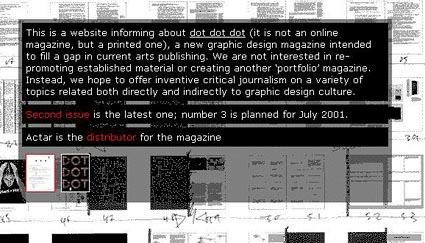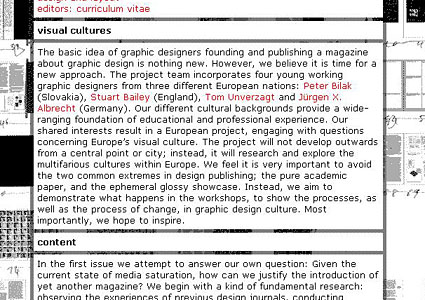
dot-font: Dot-Dot-Dot Dis
Design journalism takes a hit from a new design magazine that's out to lose friends and influence people.
The second issue of the new graphic-design magazine "..." ("Dot-dot-dot") doesn't live up to the promise of the first, but it's worth seeking out regardless. And future issues would be worth reading even to see what the editors will do next.
"Dot-dot-dot" is a design magazine with attitude, and ideas. The partial screen above is from the "dot-dot-dot" Web site.
"Dot-dot-dot" isn't like most design magazines. It's published by a four-person editorial team based in several countries: Juergen Albrecht (Leipzig), Stuart Bailey (Amsterdam/London), Peter Bilak (from Slovakia, but based in The Hague), and Tom Unverzagt (Leipzig), with "editorial oversight and advice" from Robin Kinross and Richard Hollis in London. The magazine (a compact 165mm x 235mm, or six-and-a-half by nine-and-a-quarter inches) aims to upset a few apple carts and evinces a horror of coffee-table design books. In the first issue the editors described their aims as being "critical, flexible, international, portfolio-free, rigorous, [and] useful."
Take No Prisoners
By "portfolio-free" they mean that they won't present any of the sort of articles that are the bread and butter of most design magazines: laudatory articles about the wonderful work of some designer or other, showcasing that designer's work in glossy photographs with explanatory text. Indeed, one of the most thoughtful articles in this issue, "The uses of failure," by Robin Kinross, takes an article by Margaret Richardson (also a creativepro.com contributing editor) that I published in "U&lc" as an example of the genre. The article was a study of the Portland, Oregon, design firm Anstey-Healey. (He also quotes an excerpt about El Lissitzky from a design history by Philip B. Meggs as a parallel, or perhaps complementary, example.) There's plenty of room for simply presenting good or interesting work, but Kinross is quite right that these are not critical articles. What he'd like to see is articles that convey the unruly roots and uncertain processes that lead to the finished work, rather than pieces that merely present the results.
"Dot-dot-dot" sets out to embody a new editorial approach to magazines about design, explained in the partial screen from its Web site above.
Talking about this as "portfolios" comes from the practice of graphic designers presenting a portfolio of their work to potential clients or employers, and by extension from the all-too-common occurrence of speakers at design conferences who do nothing but present a "portfolio" of their own work: "I did this, and then I did this..." This kind of conference talk gets dismissed as a "portfolio show." While the audience at a design conference may actually be quite happy to hear well-known designers talk about their most successful work, it's more interesting if the presentation makes some kind of cogent point.
Kinross' article is the only one in the issue that addresses the supposed theme set by the editors: failure. Actually, he doesn't write about specific failures; he cites the need for considering the real lives of people who create graphic design, and the conditions and circumstances -- and failures -- that lead them to the end points that we notice. He quotes his own mentor, Anthony Froshaug: "Why celebrate people in books if you cannot say what they did, and why, for what (and for how much)? I should not like to celebrate my death, laid out on a coffee-table."
High Concept
Daniel Eatock, in an empty-looking pair of two-page spreads entitled "Call for entries ... A feature article without content," makes Kinross' point about the predictable form of the design article in far fewer words -- nothing but a few captions, in fact, in four pages of conventionally arranged blank rectangles representing the layout of a typical article (this piece, and those that follow, is not available for viewing on the magazine's Web site). At first I thought this was a waste of space for the sake of a small joke, but in fact Eatock's composition is right on target. Most of what he's pinpointing is conventional rather than objectionable, but one of his captions gives away his own attitude toward it all: "Main text continued, racing forward, oversimplifying and eliminating most points designers discussed with writer." In this context his concluding caption, about the "final word ... ending article on a positive upbeat and friendly note," seems quite sinister.
Jargon Generators
The other pretension that's attacked in this issue is art-speak, or the jargon used by people in the contemporary art world -- curators, critics, even the artists themselves. The lead article, by Robert Garnett, tells the tale of the London-based art collective BANK and its "FAX BAK" program of marking up invitations, flyers, and press releases they received from local art galleries as though they were student papers, and faxing them back to the senders. The examples shown of what the members of BANK actually wrote on the uninvited flyers vary from real criticism to heckling; they have a good eye for jargon, but too much of their commentary is just cheap shots. Garnett's article starts off making a very good point about the nonsense spouted by pretentious members of the arts world (what he calls "curatorese"), but he falls into it himself, as soon as he starts talking seriously about using humor as a critical technique.
The trouble with this kind of writing is that too often the writer ends up just trying to show how clever he is -- even when he thinks he's criticizing such writing by others -- rather than showing how clearly he can think and express himself.
The point is made better by two other pieces in this issue. Heather Lenz, in "Interview Game," also responds to the art world's jargon, but she does so by creating a deck of cards with interchangeable questions and answers taken from jargon she ran across in art magazines. She might have done better to ignore the jargon rather than spending so much time on it, but her card set both amuses and cuts to the point. Elsewhere, Erik van Blokland and Jonathan Hoefler generate an article that is pure jargon, perfectly content-free, using "filibuster scripts" -- sort of like an automated version of Mad Libs. Of course the article goes on too long but is amusing all the same. ("Dark taupe photography offers insight into counter-problematic verticalisation in typography.")
Form vs. Content
This issue of "Dot-dot-dot" contains a lot of material, but it's not inviting to look at. From the badly spaced architect's-handwriting font used for the editorial to the horrendous dot-matrix printout used for Paul Elliman and Michael Rock's piece on "Designed screens," too many pages of the magazine are simply hard to read. It's all done to make you think, but generally what makes readers think is the text, not the way it's presented. (It's a conceit of graphic designers to believe that people are stimulated to intellectual rigor by difficult typesetting and layout.)
Just what we needed.
All I can say is great, that's just what we need. Another group of designers sitting up from on high criticizing